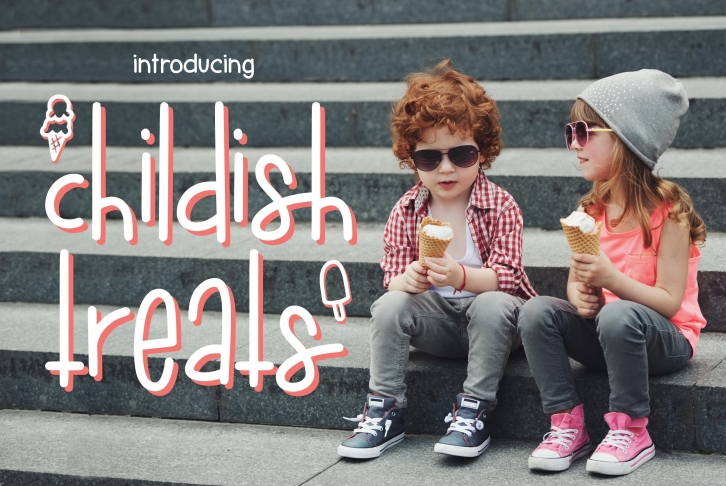
Welcome to the whimsical world of Childish Treats! This fun and festive font was created with the young at heart in mind. It’s perfect for all your crafting needs, from invitations to scrapbooking. But the best part is the added sweet treat doodles – they’re sure to put a smile on everyone’s face. So go ahead and indulge your inner child – with Childish Treats, the sky’s the limit!